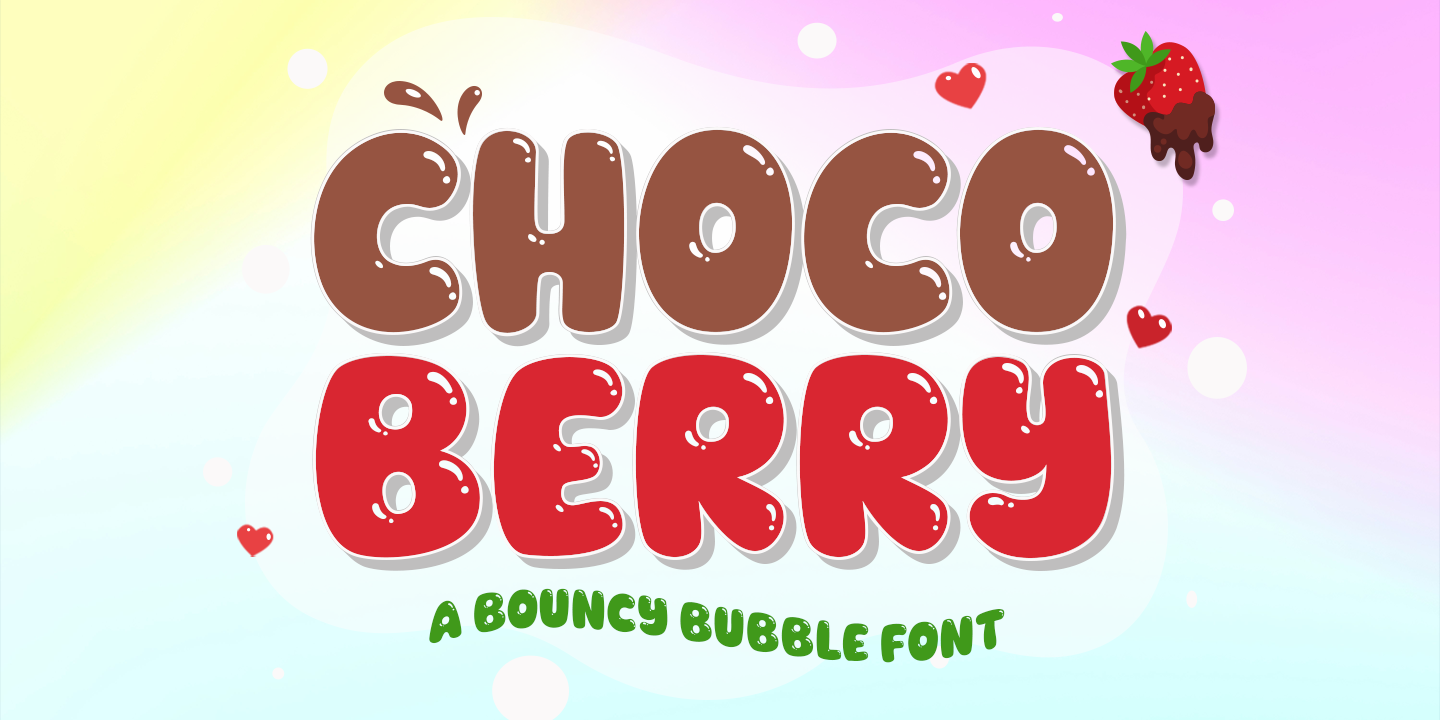
If you're looking for a playful, sweet typeface with a fun and inviting vibe, Choco Berry Font Free Download is the perfect choice for your creative projects. This delightful font features rounded, bubbly letterforms with a soft, friendly style, making it ideal for candy packaging, children’s books, party invitations, bakery branding, social media graphics, and any design that needs a joyful, whimsical touch. Its cheerful personality adds instant charm and warmth to your visuals.
Choco Berry Font balances fun aesthetics with solid readability, making it versatile for both print and digital applications. It includes multilingual support and a variety of characters, allowing designers to create engaging, personalized typography. Whether you're designing playful logos or colorful promotional materials, this font brings happiness and creativity to your work.